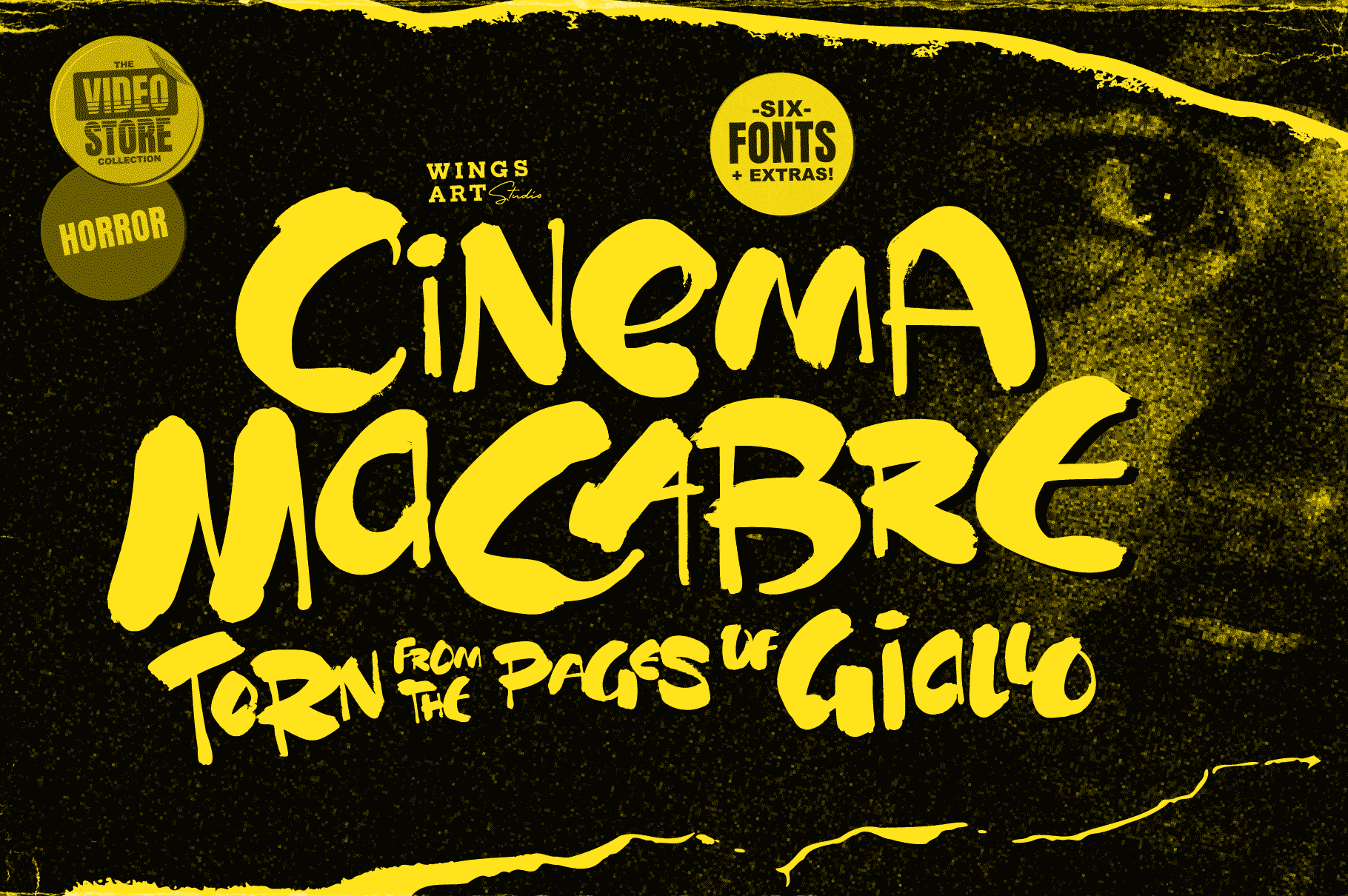
Cinema Macabre: Giallo Horror Font
This loose and inky brush font takes its inspiration from the classic Giallo film posters of the 1960s to 1980s – a cult cinematic subgenre beloved for its stylish visuals, haunting soundtracks and exploitation led marketing. Cinema Macabre is a devilishly drawn design that aims to capture the feeling of vintage horror, preserving analogue details of old print while remaining versatile enough to work across a variety of digital designs. This fiendish font family boasts six fonts, each containing a unique set of uppercase and lowercase characters, as well as numerals, punctuation and language support. Add to this a host of custom ligatures, underlines and graphic elements and you have an essential toolbox for creating truly hand-made looking title designs. Contents: Cinema Macabre; – Regular – Alternative 01, 02, 03, 04 and 05 – Underlines – Preview PDF – OTF, TTF and WOFF Formats Cinema Macabre if a font that rewards experimentation by mixing all the various upper and lowercase alternatives, with interesting combinations waiting to be found and inspire terror across your own movie posters, book covers, albums and editorials. Few other fonts offer the versatility to create such diabolical designs! Special thanks to the great photographers that have contributed to these visuals. See more at unsplash.com. In popular cinema, Giallo is a genre of mystery fiction and thrillers often containing slasher, psychological horror, exploitation, supernatural and erotic elements. The term giallo (meaning yellow) derives from a series of pulp novels published by Mondadori from 1929 taking the name from its trademark yellow covers. The series consisted of Italian translations of mystery novels by well-known authors such as Agatha Christie, Edgar Allan Poe and Raymond Chandler. The popularity of these cheap paperbacks eventually established the word Giallo as a synonym in Italian for a mystery novel. The cinematic Giallo subgenre developed during the 1960-80s and are noted for their vivid cinematography, memorable soundtracks and inventive gore-filled scenarios. Key examples include Dario Argento’s Suspiria, Tenebrae and Deep Red – stylish films that at once influenced the American slasher (see Black Christmas and Friday 13th) up to todays horror in Censor and Last Night In Soho. Find more Horror fonts including the best-selling Zombie Punks in our shop!